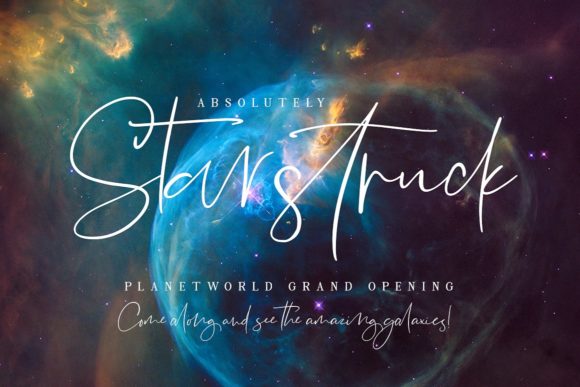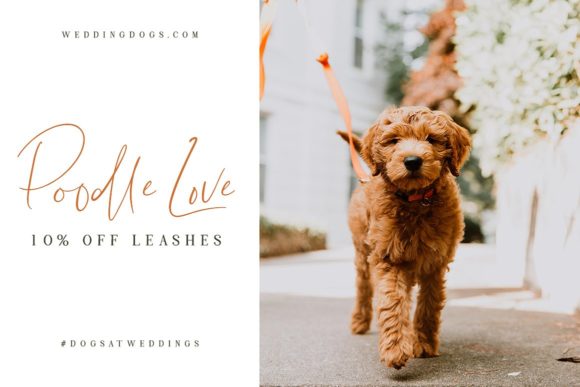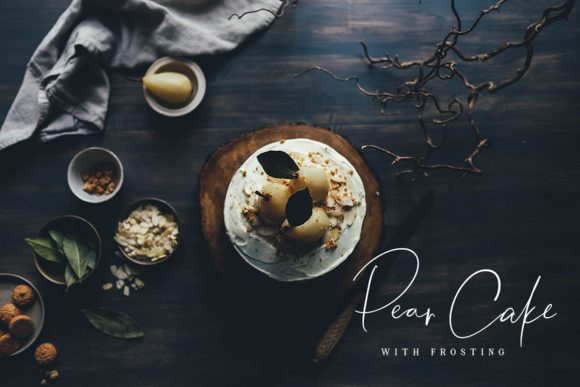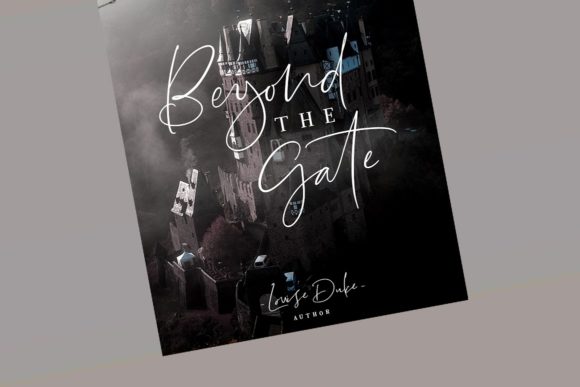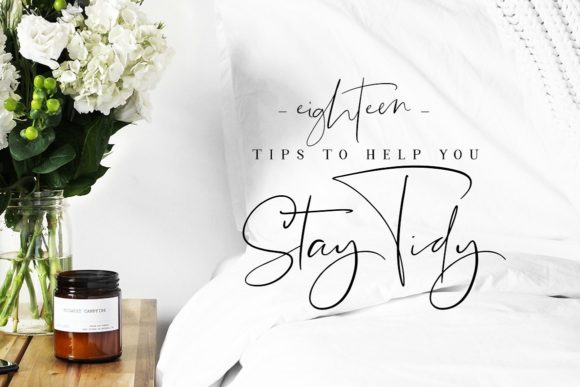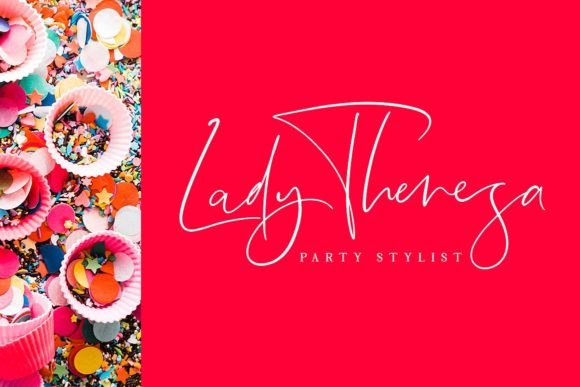
Introduction to Lightheartedly Font Font
Fonts play a crucial role in design, and the Lightheartedly Font font is a typeface that brings both character and versatility to any project. Whether you’re working on a branding project, a website, or a print design, the Lightheartedly Font font offers a unique style that can elevate your work.
The Lightheartedly is a classy, yet relaxed hand written script font.
Itβs perfect for quotes, invites, weddings, posters, signs, branding, logos, planner stickers, and much more .
Key Features of Lightheartedly Font Font
Why Choose Lightheartedly Font Font?
The Lightheartedly Font font is more than just a typeface β it’s a design tool that helps you communicate your message with style and clarity. Its unique character set and versatile design make it suitable for a wide range of applications, from elegant invitations to bold headlines.
With its carefully crafted letterforms and balanced proportions, the Lightheartedly Font font ensures readability and visual appeal across all mediums.
What makes Lightheartedly Font font special?
The Lightheartedly Font font stands out with its unique design, exceptional readability, and versatility across various design applications.